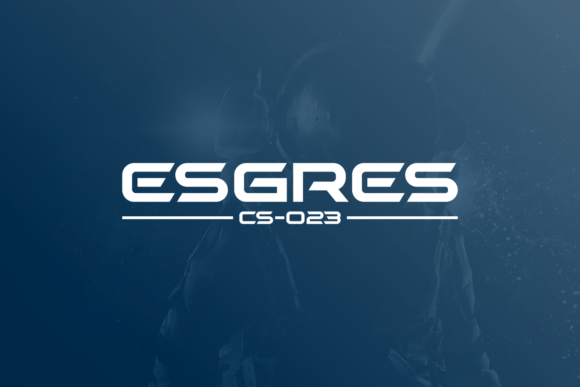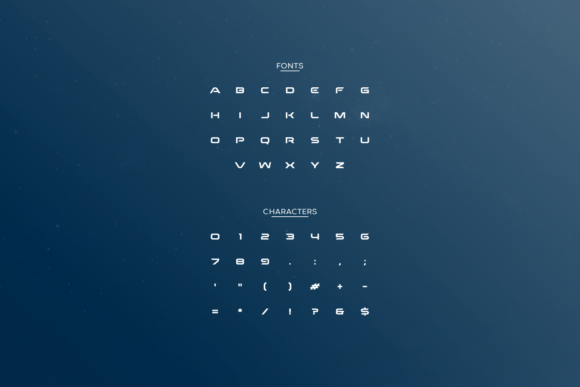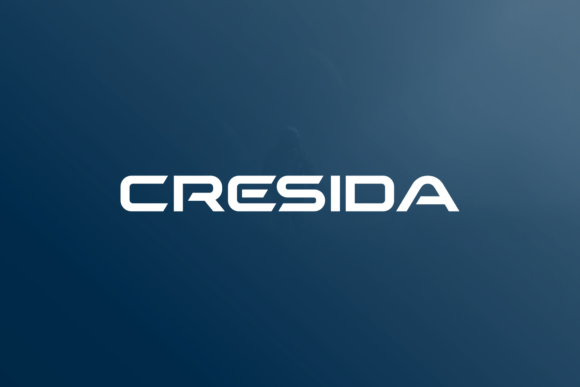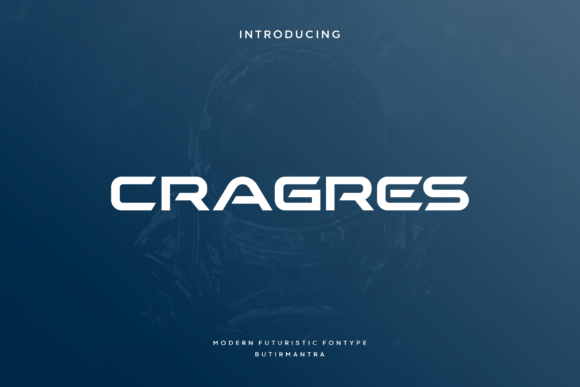
Cragres Font: Elevate Your Designs with a Cool and Neat Display Font
In the world of typography, a font can make or break a design. For designers and crafters looking for a unique and stylish display font, Cragres Font is an excellent choice. With its simple yet modern and elegant look, Cragres is perfect for headlines, branding, and logo designs. In this article, we’ll dive into the features and benefits of Cragres Font and explore how it can elevate your designs.
The Characteristics of Cragres Font
Cragres Font boasts a smooth angular shape that gives it a classy and sophisticated look. Its neat and clean design makes it highly legible, even at larger font sizes. The font’s simplicity is one of its standout features, allowing it to work seamlessly with a wide range of design styles. Whether you’re creating a bold headline or a subtle logo, Cragres Font adapts effortlessly.
Perfect for Headlines, Branding, and Logo Designs
Cragres Font is specifically designed for display purposes, making it an ideal choice for headlines, branding, and logo designs. Its modern and elegant look ensures that your text stands out without being too overpowering. The font’s versatility allows it to work well in various contexts, from digital media to print materials.
Benefits of Using Cragres Font
- Unique and Stylish: Cragres Font offers a distinctive look that sets it apart from more traditional fonts. Its angular shape and smooth lines create a visually appealing effect that captures attention.
- Highly Legible: The font’s clean design ensures that it’s easy to read, even at larger font sizes. This makes it perfect for headlines and titles where clarity is essential.
- Versatile: Cragres Font works well with a wide range of design styles, from minimalist to luxurious. Its simplicity allows it to complement other design elements without overpowering them.
- Elegant and Modern: The font’s modern and elegant look makes it suitable for high-end branding and logo designs. It adds a touch of sophistication to any design.
Cragres Font is a cool and neat display font that offers a unique and stylish solution for designers and crafters. Its smooth angular shape and modern look make it perfect for headlines, branding, and logo designs. With its high legibility, versatility, and elegant design, Cragres Font is an excellent addition to any design toolkit. Whether you’re creating a bold headline or a subtle logo, Cragres Font is sure to elevate your designs.